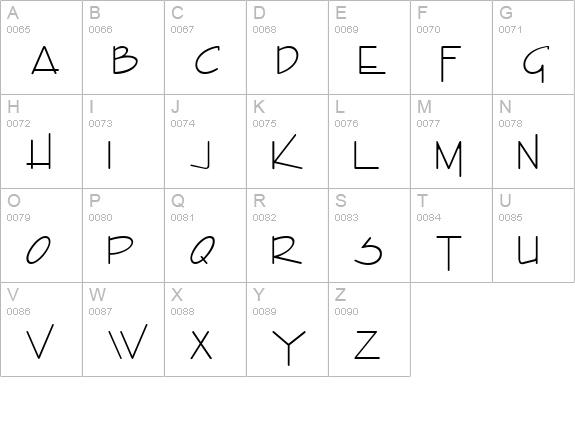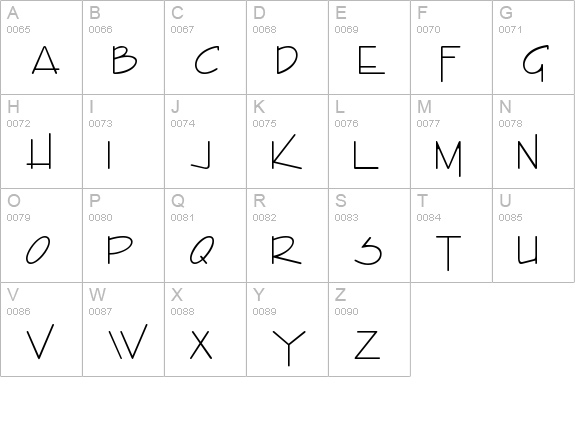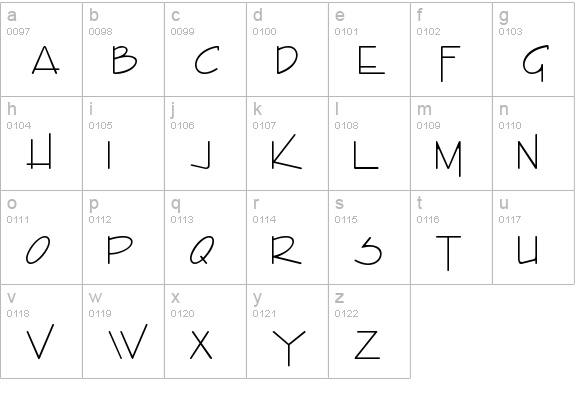
Enview Light Normal is a refined, elegant variant in the Enview typeface family \xE2\x80\x94 well suited to elegant body text, refined sub-headings, and luxury branding.
Enview Light is a modern and elegant font that exudes sophistication and simplicity. Its clean lines and subtle curves make it perfect for a wide range of design projects, from branding to editorial design. The light weight of this font adds a touch of delicacy and refinement to any text it is used for. What makes Enview Light even more appealing is that it is available for free download at FontsMarket.com. This means that you can easily access this beautiful font and use it in your projects without any additional cost. Whether you are a designer looking for a versatile typeface or a business owner wanting to elevate your branding, Enview Light is a fantastic choice that won't break the bank. Download it today and add a touch of class to your designs!